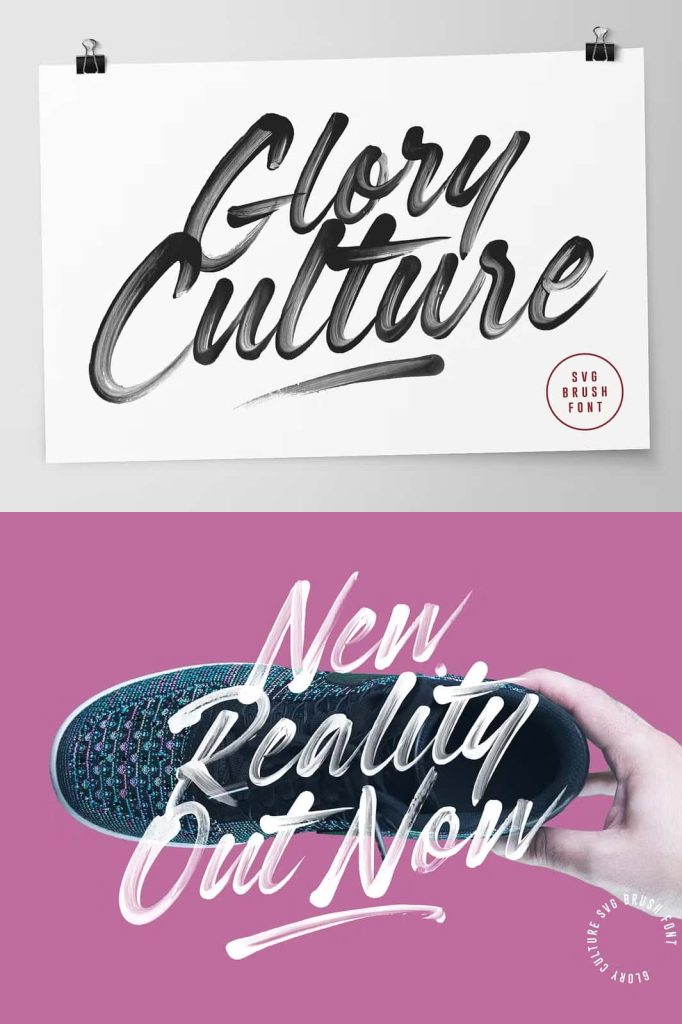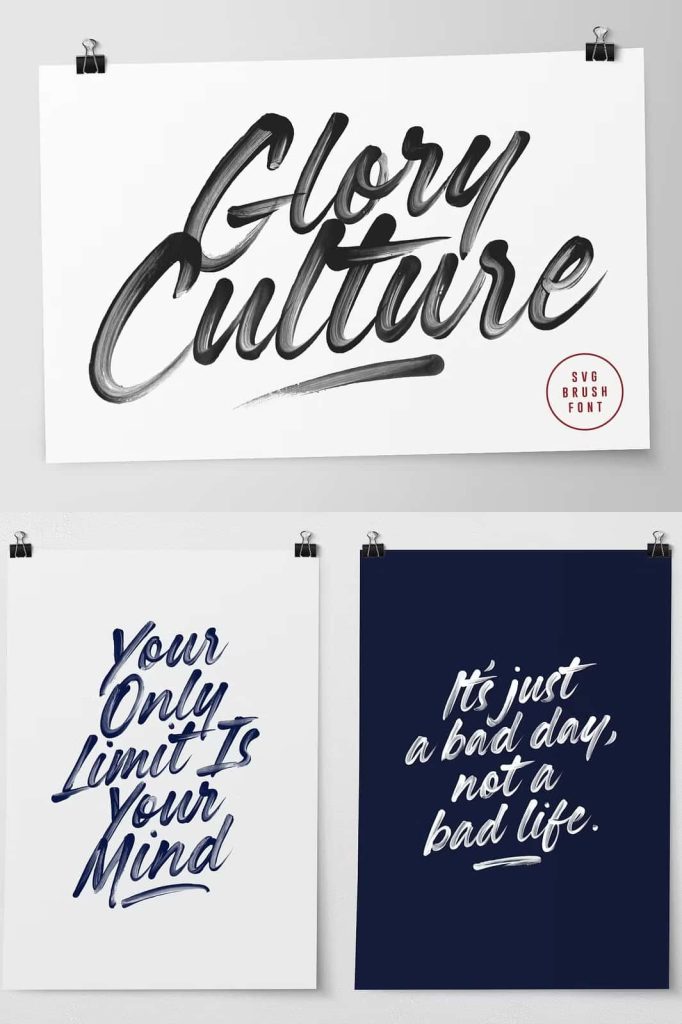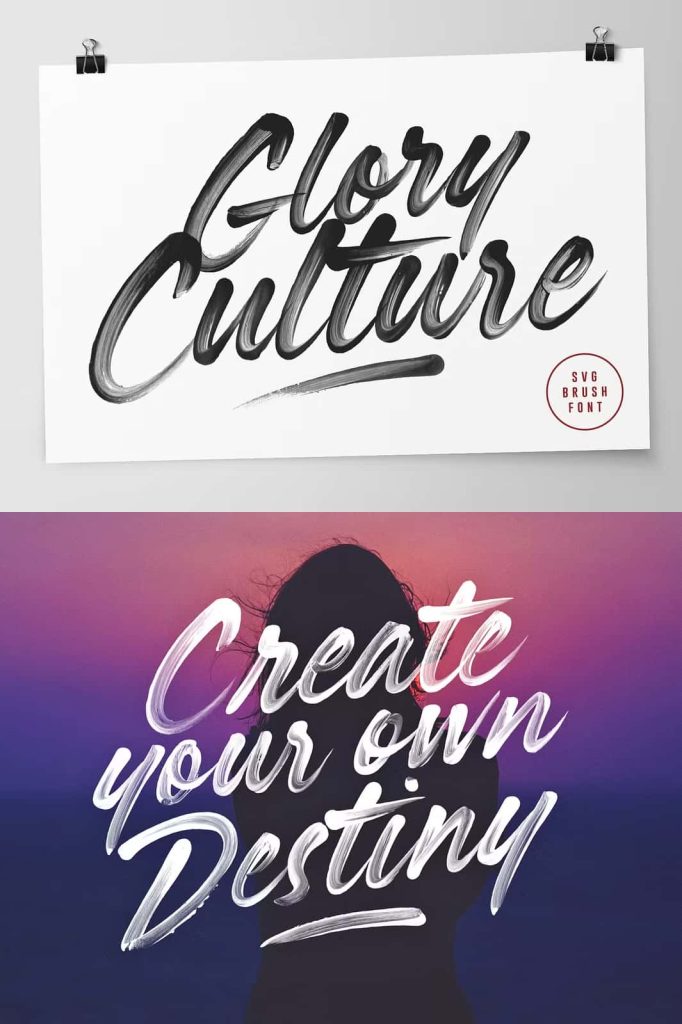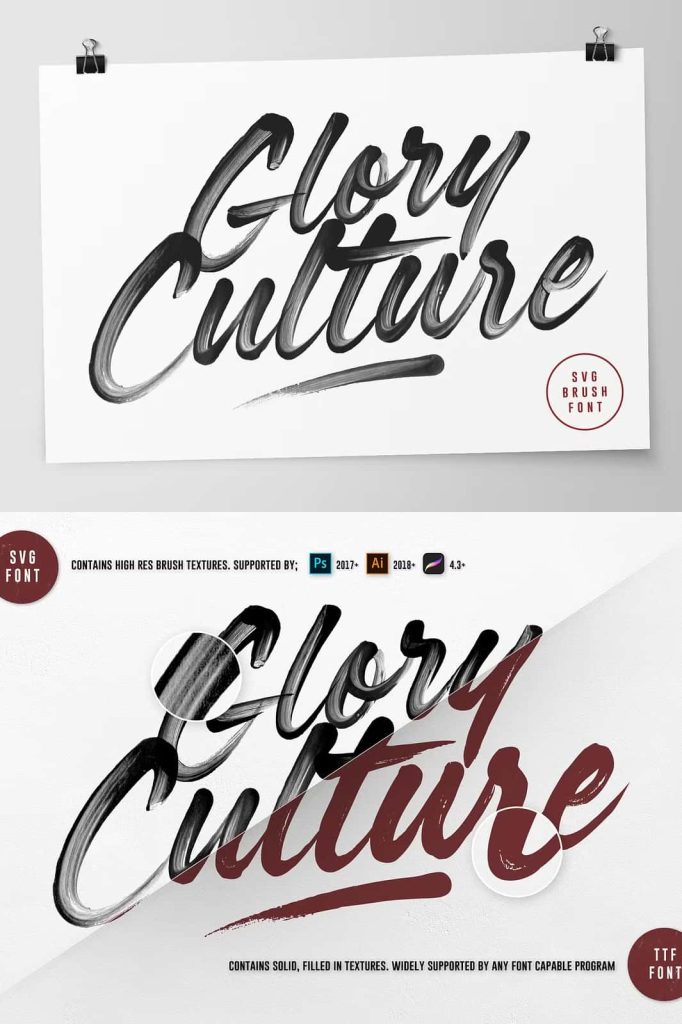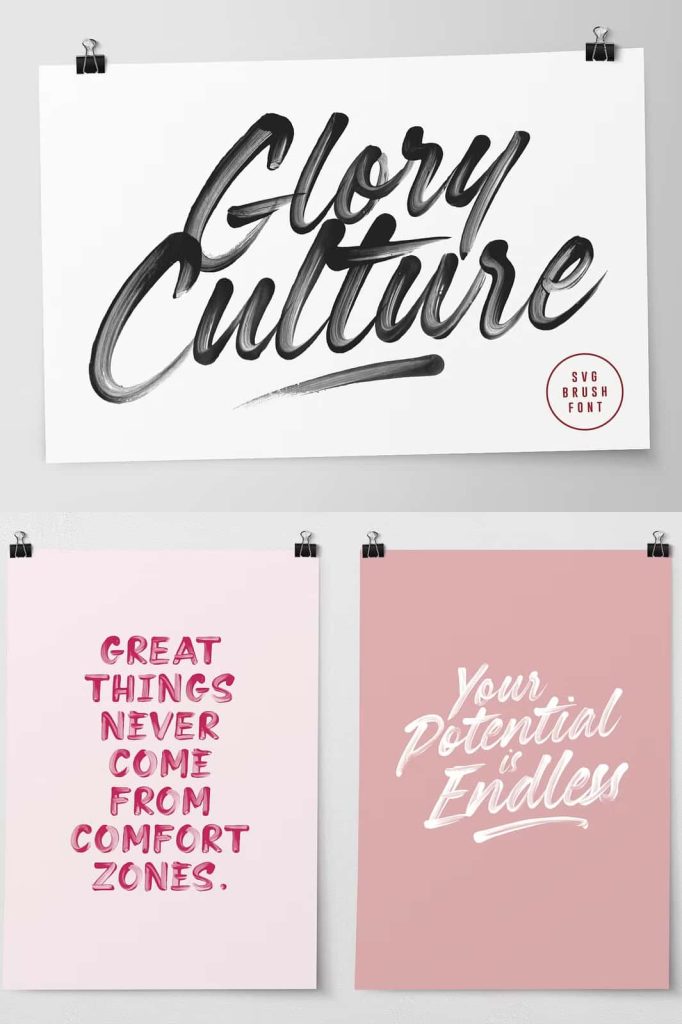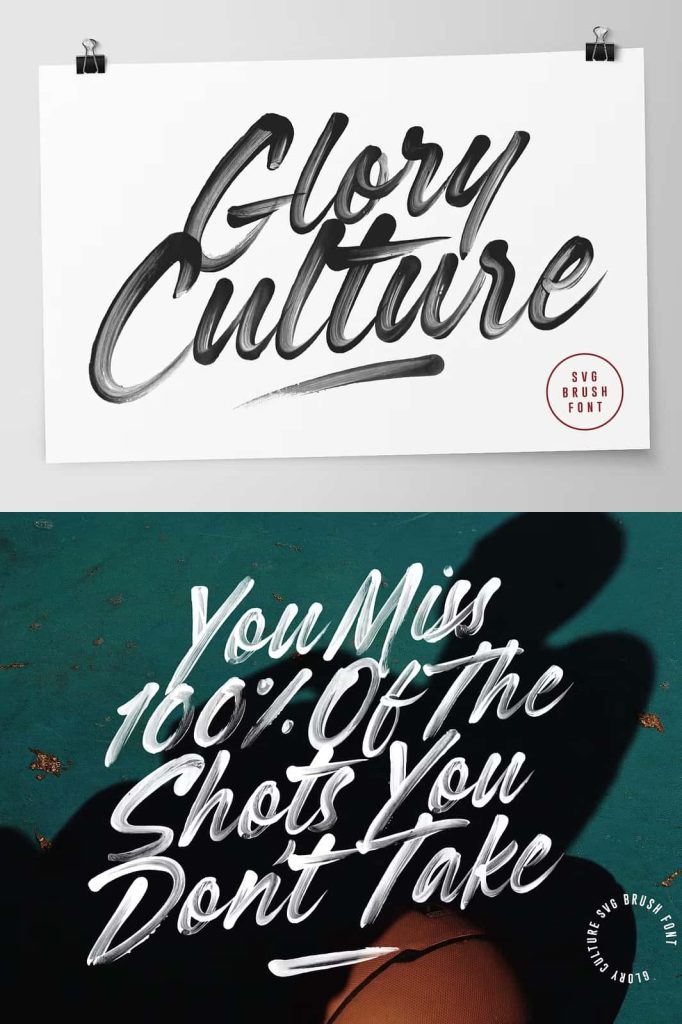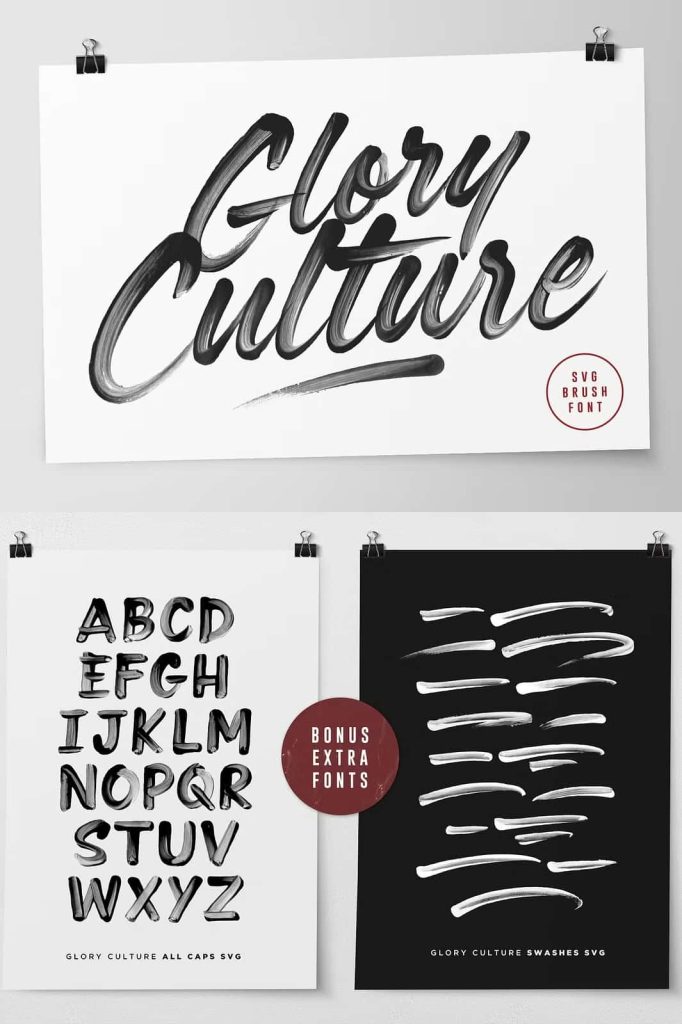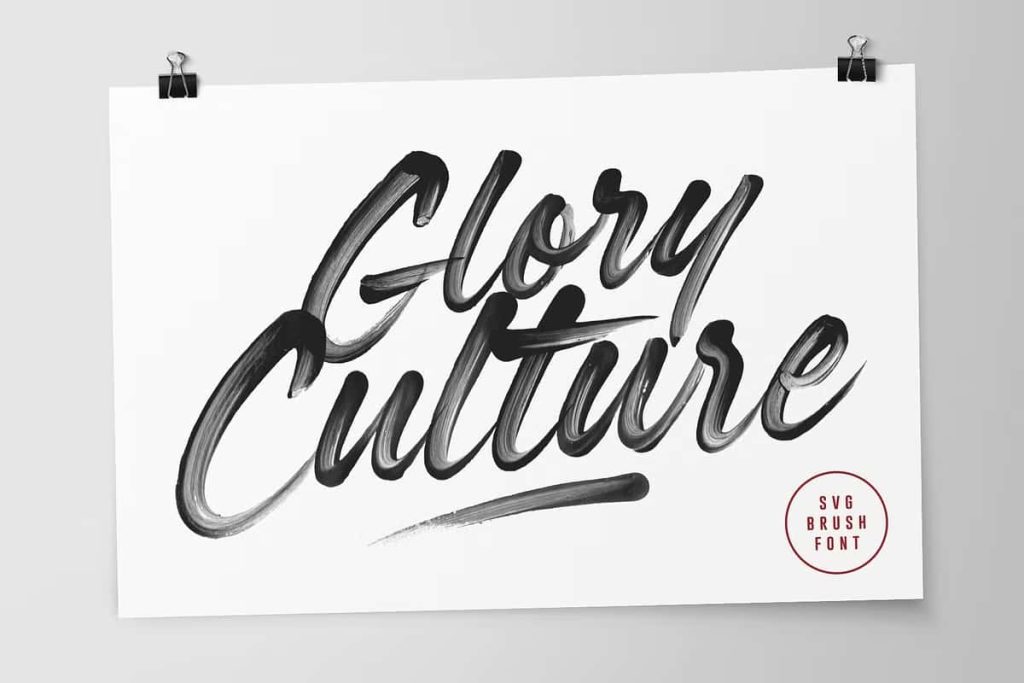
Glory Culture SVG Font + Extras
Glory Culture SVG Brush Script Font
Glory Culture is a fresh and modern brush script SVG font that captures the expressive energy of authentic hand-painted lettering. Designed with real brush strokes and detailed textures, this font brings powerful visual impact to any design. Thanks to advanced OpenType-SVG technology, the natural brush details remain embedded directly inside the font, allowing designers to create textured, painterly typography simply by typing.
Unlike traditional script fonts that rely on clean vector shapes, Glory Culture preserves the rich texture and organic imperfections of real brush painting. Every letter displays detailed strokes, transparent textures, and natural paint variations. This approach allows designers to produce authentic hand-painted typography without manually editing brush lettering.
The result is a bold and expressive display font that instantly stands out in modern design projects.
A Modern Brush Script with Hand-Painted Character
Glory Culture celebrates the beauty of hand-painted lettering. The font recreates the look and feel of brush strokes created by hand, giving the typography a dynamic and artistic personality. Each character contains textured strokes that replicate the pressure, movement, and natural variation of real brush painting.
This handcrafted quality helps the font communicate creativity, authenticity, and energy. Instead of appearing overly polished or mechanical, the lettering feels raw and expressive. These qualities make Glory Culture perfect for projects that require bold and artistic typography.
Designers who want their text to look like genuine brush lettering will appreciate how naturally this font captures that style.
Built with OpenType-SVG Technology
One of the most exciting features of Glory Culture is its use of OpenType-SVG technology. Unlike standard fonts that rely solely on vector outlines, SVG fonts allow designers to embed detailed textures and color information directly within the typeface.
This means the brush textures and paint details are already built into each letter. When designers type with the font, the textured brush effect automatically appears without requiring additional graphic editing.
This technology dramatically simplifies the design process. Instead of manually applying textures or overlays, designers can simply type their text and instantly produce authentic brush lettering.
Real Brush Stroke Texture Built into Every Letter
Glory Culture preserves the raw beauty of painted brush strokes by embedding transparency and texture within the characters. These brush details include rough edges, paint streaks, and subtle ink variations that mimic real brush marks.
The transparency effect allows the letters to interact beautifully with background colors, images, and design elements. This feature creates more depth and realism than traditional flat script fonts.
Because the brush textures are part of the font itself, the lettering maintains its authenticity even when scaled to large sizes.
Effortless Creation of Authentic Display Text
One of the biggest advantages of Glory Culture is how easily it produces stunning display typography. Designers do not need to manually paint letters or apply complex textures. Instead, they can simply type their message and allow the font to generate the brush lettering automatically.
This efficiency makes Glory Culture an ideal tool for designers who want the appearance of hand-painted typography without spending hours creating custom lettering. The font streamlines the creative process while still delivering visually striking results.
With just a few keystrokes, designers can create bold and authentic headlines that immediately capture attention.
Perfect for Social Media Graphics
Glory Culture works exceptionally well for social media content. Platforms such as Instagram, Facebook, and Pinterest rely heavily on visually engaging graphics to capture audience attention.
The bold brush textures and expressive strokes of the font help text stand out in crowded feeds. Designers can use the font to create powerful headlines, inspirational quotes, promotional graphics, and branded content.
Because the lettering already includes built-in texture, designers can quickly produce eye-catching visuals without extensive editing.
Great for Advertising and Posters
Advertising design often requires typography that instantly attracts attention. Glory Culture delivers exactly that with its bold brush style and dramatic texture.
The expressive strokes give headlines a sense of movement and energy, making the font perfect for promotional posters, event announcements, and marketing campaigns. The hand-painted look also adds authenticity and creativity, helping designs feel more artistic and memorable.
When used in large display sizes, the brush textures become even more visible, enhancing the overall visual impact.
Excellent for Product Packaging and Branding
Glory Culture also performs beautifully in product packaging and brand identity design. The handcrafted brush style communicates creativity and originality, which can help brands build a stronger emotional connection with customers.
Artisan products, lifestyle brands, streetwear labels, and creative businesses often benefit from typography that feels expressive and handcrafted. The natural brush texture adds personality and uniqueness that standard fonts cannot easily replicate.
Designers can use the font for product labels, packaging titles, promotional materials, and brand messaging.
A Bold Typography Tool for Creative Designers
Glory Culture provides designers with a powerful tool for creating expressive brush lettering. By combining authentic hand-painted strokes with modern OpenType-SVG technology, the font delivers the best of both worlds: artistic authenticity and digital convenience.
The built-in brush textures eliminate the need for complicated editing while still producing high-quality display typography. Designers can quickly create dramatic headlines, stylish branding, and visually engaging graphics using only the font itself.
For creative professionals seeking a bold, textured brush script with modern capabilities, Glory Culture stands out as an exceptional choice for impactful and authentic typography.